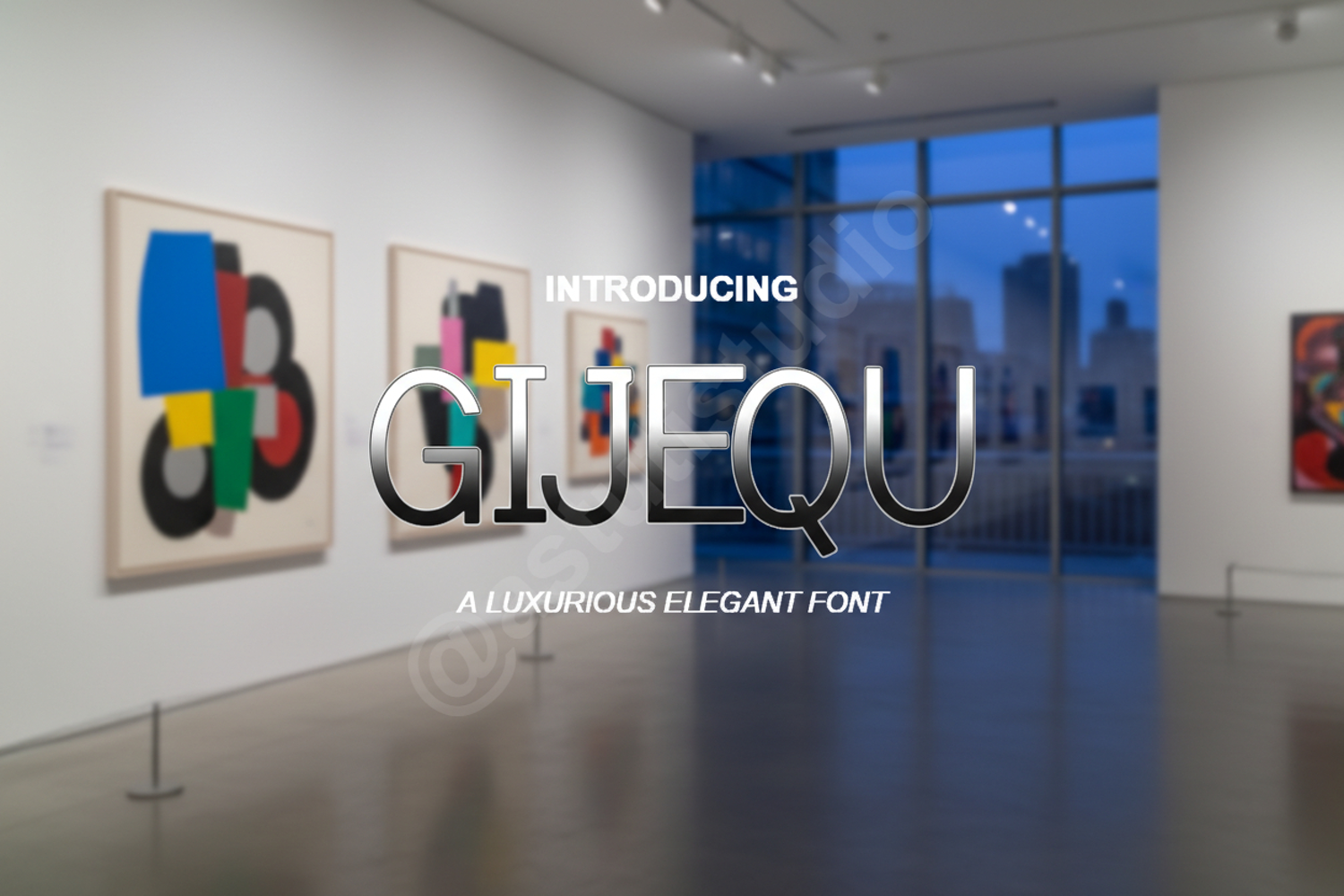
Gijequ - Sophisticated Modern Serif Font
Gijequ
Elevate your design projects with Gijequ, a premium serif font that seamlessly blends classic sophistication with modern aesthetics. Crafted with precision, Gijequ offers a clean and high-end look that ensures your message is delivered with style and clarity. Its balanced proportions and unique letterforms make it a standout choice for designers seeking versatility and elegance in their creative toolkit.
- Comprehensive set of Uppercase and Lowercase letters
- Numbers, Punctuation, and Multilingual Support
- Professional Branding: Create a memorable identity for luxury brands and boutique businesses.
- Editorial Design: Perfect for magazine layouts, headlines, and high-impact typography.
- Wedding Invitations: Add a touch of timeless elegance to stationery and event materials.
- Social Media Graphics: Enhance your digital presence with sleek and readable text.
- Logo Design: Build a strong visual foundation with a font that exudes confidence.